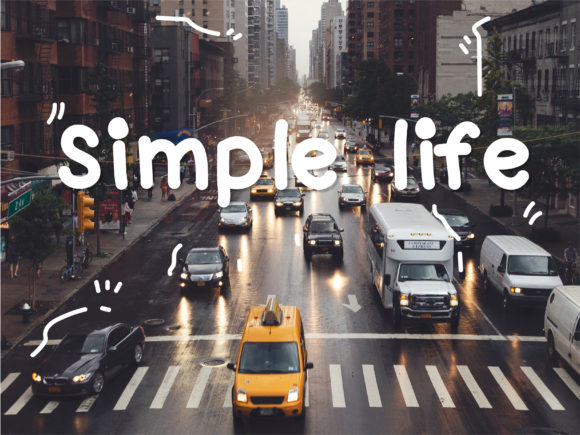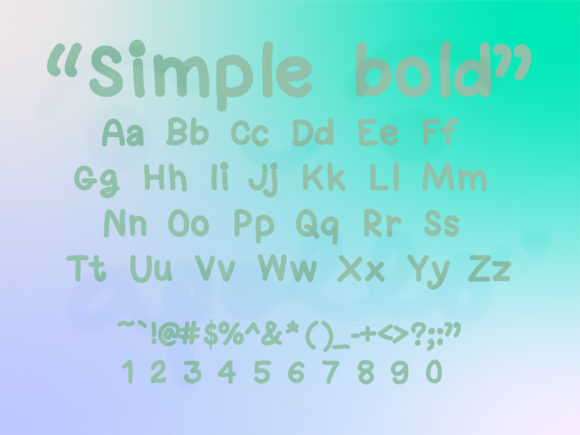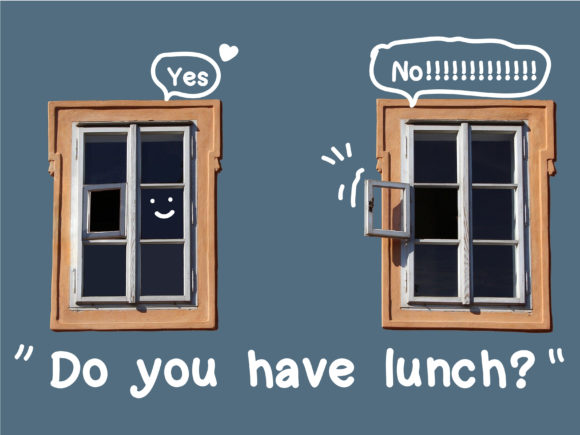
Introduction to Simple Bold Text Font
Have you ever been stuck on a creative project, staring at a blank page, desperate for that one perfect font to bring your vision to life? I know I have. The search for the perfect design resource can be overwhelming, but sometimes it’s the simplest solutions that yield the most stunning results. Enter the Simple Bold Text Font – a clean and friendly handwritten font that’s about to become your new best friend.
With its original look and high-quality design, this font is the perfect addition to any crafty idea, from letterheads and titles to stationery. Whether you’re working on a free download or a paid project, the Simple Bold Text Font is sure to elevate your design and leave a lasting impression. Plus, with its transparent background, you can easily layer it over any image or texture to create a truly unique look.
Key Features of Simple Bold Text Font
- High-quality design for a wide range of creative projects, including logos, signage, and digital displays
- Simple, bold text font with a transparent background, ideal for use on any background or design
- Perfect for use as a design resource in branding, marketing materials, and other creative projects
Honest Review: Simple Bold Text Font
As a designer, I’m always on the lookout for high-quality design resources to elevate my creative projects. Recently, I stumbled upon the Simple Bold Text Font, and I’m excited to share my honest review.
- ✨ Unique, bold typography that adds a touch of sophistication to any design
One of the standout features of the Simple Bold Text Font is its versatility. It can be used for both personal and commercial projects, and its transparent background makes it easy to layer with other design elements.
- ⚠️ Limited character set, which may not be suitable for complex text-heavy designs
- ⚠️ Not as customizable as some other font options, which may limit its appeal to designers who value flexibility
Overall, I’m impressed with the Simple Bold Text Font, and I would recommend it to designers who are looking for a bold, high-quality font to add to their design arsenal. While it may have some limitations, its unique style and free download make it an excellent addition to any creative project.
The Simple Bold Text Font is ideal for use in headings, titles, and body text. It’s also great for creating custom graphics, logos, or icons. You can use it in a variety of design projects, from business cards to brochures, and from social media graphics to presentations.